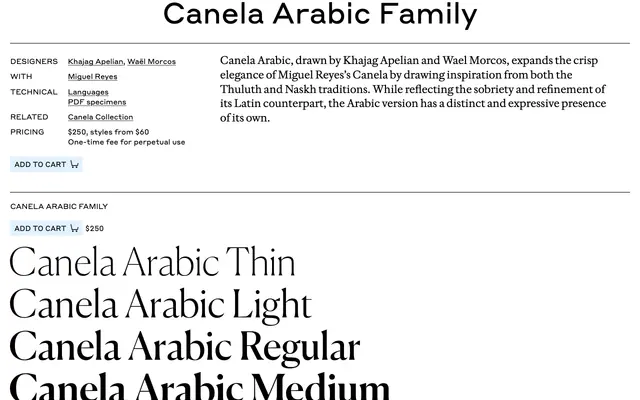
Canela Arabic
Commercial Type · Khajag Apelian, Wael Morcos · 2023
An Arabic companion to Canela by Khajag Apelian and Wael Morcos, drawing on the Thuluth and Naskh traditions.
An Arabic family drawn by Khajag Apelian and Wael Morcos that extends Miguel Reyes's Canela by reaching back to the Thuluth and Naskh calligraphic traditions. While the design echoes the sober elegance of its Latin counterpart, it carries its own distinct expressive presence, supplied with a paired Latin so editorial and identity systems can move between scripts without losing voice.
Commercial Type describe Canela Arabic as an extension of Miguel Reyes's Canela drawing inspiration from both the Thuluth and Naskh traditions, reflecting the sobriety and refinement of its Latin counterpart while keeping a distinct expressive presence.